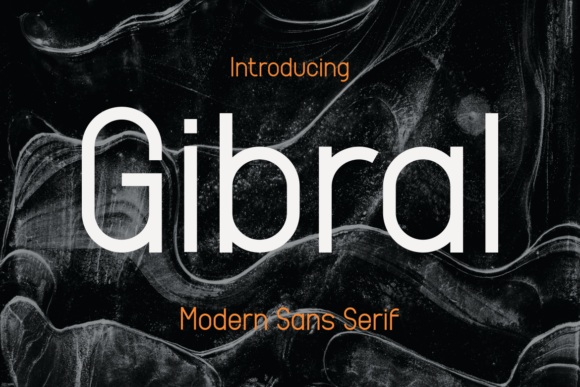
Dive into the captivating world of Gibral Font, where your branding projects soar to new heights. This extraordinary sans serif font, crafted by the visionary maikofarazhatta, exudes boldness and authenticity, ready to elevate your designs to unparalleled levels.
Picture your logos adorned with Gibral's striking presence, making an unforgettable mark in the competitive landscape. Unleash your creativity on eye-catching T-shirts that speak volumes with every print. Step into the electrifying realm of esports, where Gibral's energy fuels your dominance.
But Gibral's versatility extends far beyond these boundaries. Its exceptional character shines in a myriad of contexts, effortlessly transforming your work into masterpieces. Whether you seek to captivate audiences with social media graphics, craft compelling presentations, or create website designs that inspire, Gibral empowers you to make an indelible impression.
Embrace the allure of Gibral Font and unlock a world of limitless possibilities. Its bold strokes ignite emotions, capturing hearts and igniting imaginations. Let Gibral's authenticity lend a touch of genuineness to your creations, forging a deep connection with your target audience.
Dare to stand out, dare to be extraordinary. With Gibral Font as your ally, your branding endeavors will reach new heights, leaving an unforgettable legacy in the minds of all who encounter your designs.